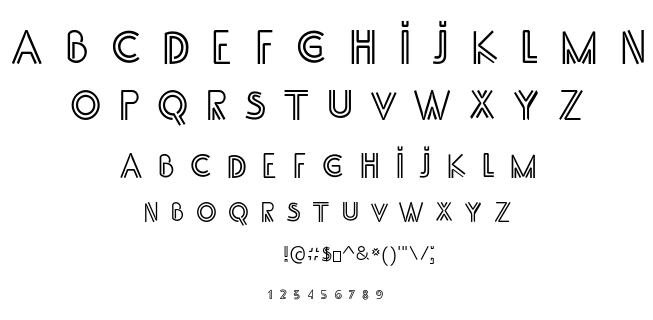
Typeface Adec – inspired by time of Art Deco and Constructivism.
font can be used in posters, magazines, logos.
distinguishing feature is the simplicity compilation of decorative elements, such as: texture, frames, etc